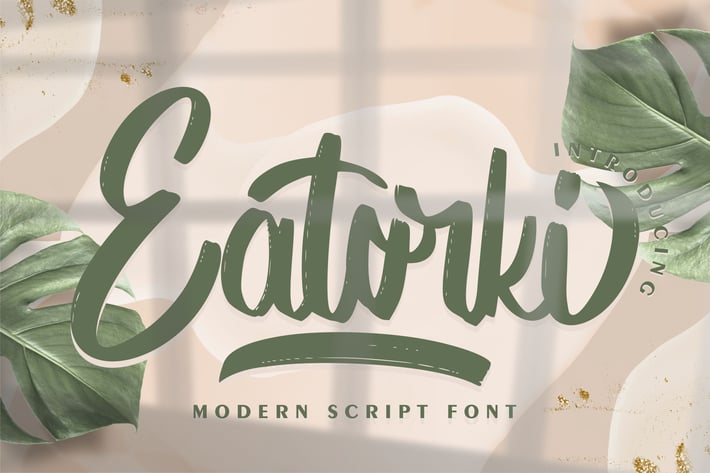
Eatorki | Modern Script Font
Eatorki | Modern Script Font with a calligraphy style, So beautiful on invitation like greeting cards, branding materials, business cards, quotes, posters, and more!